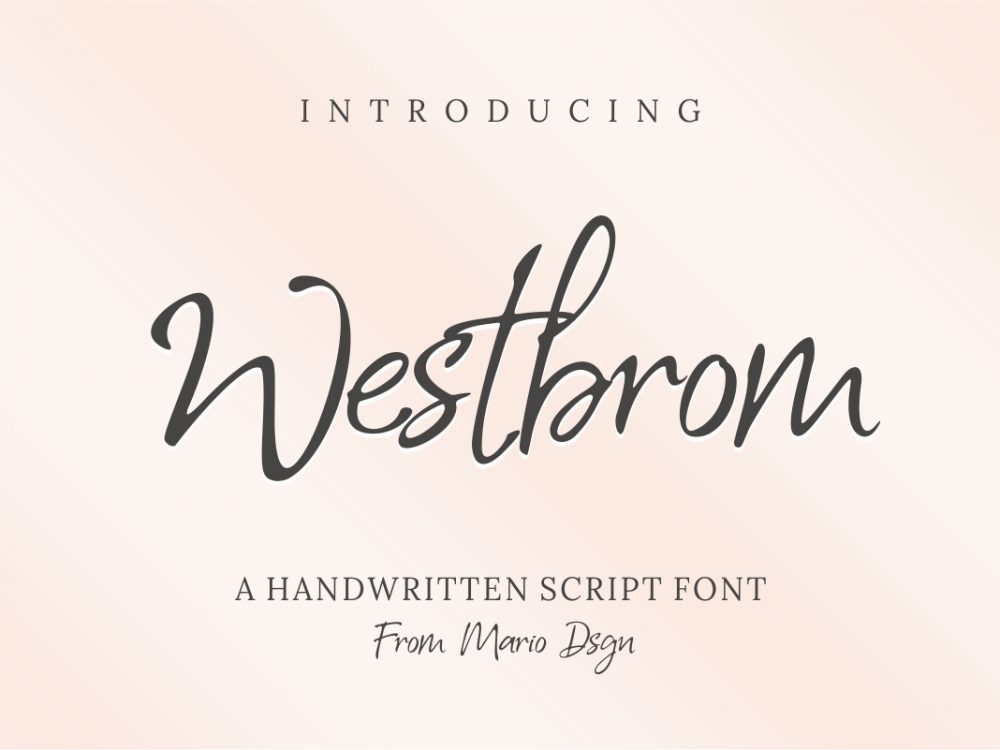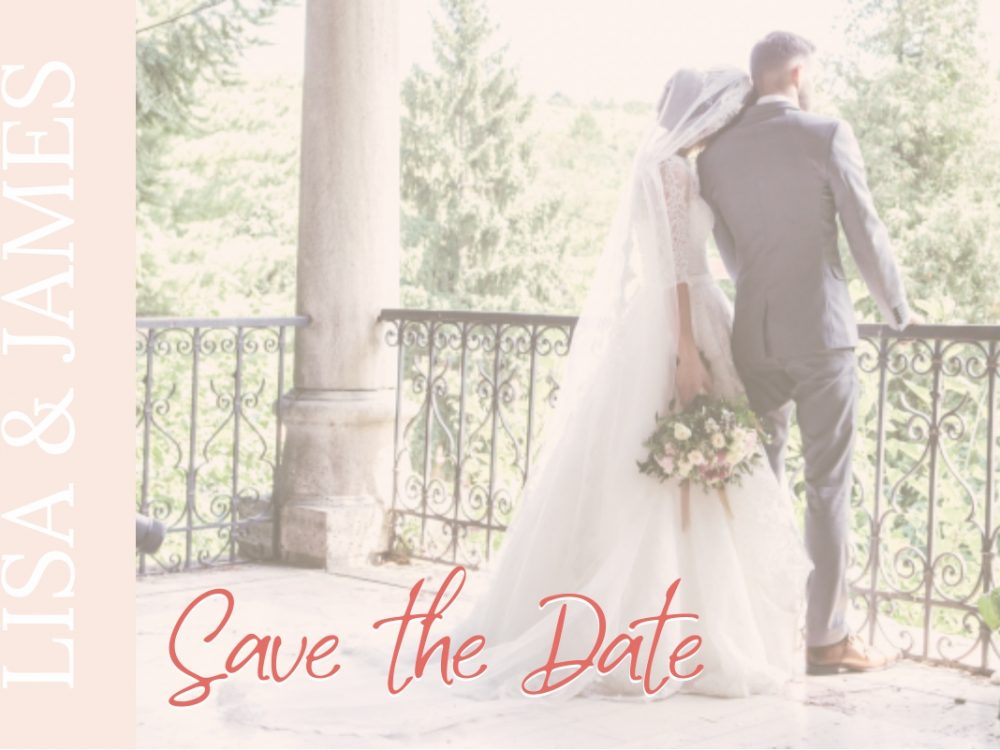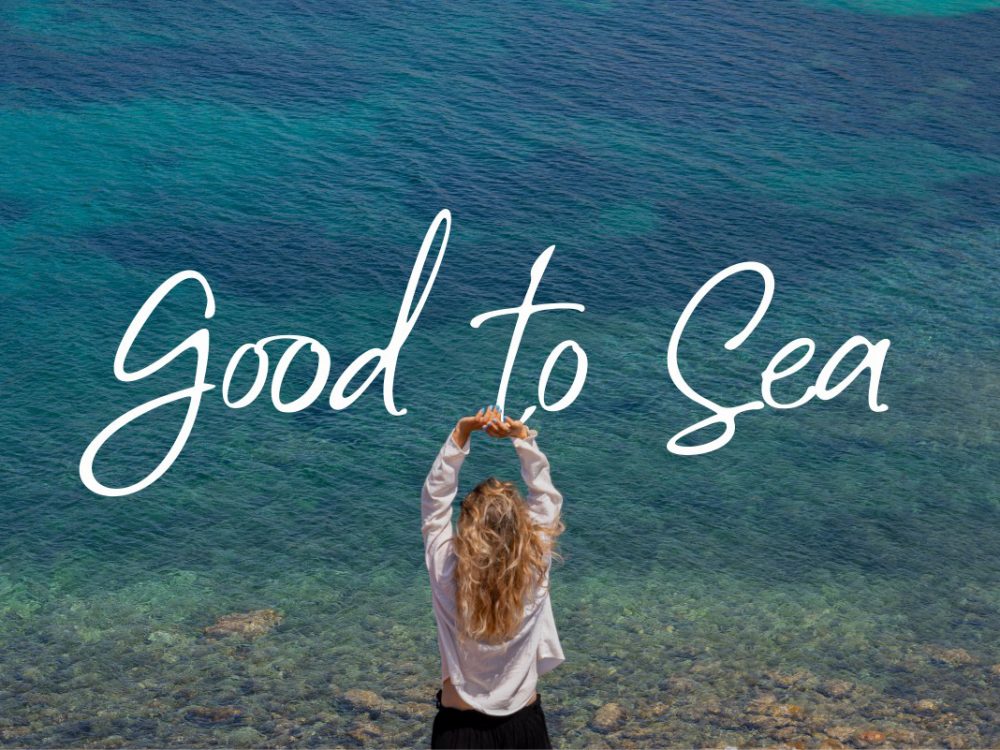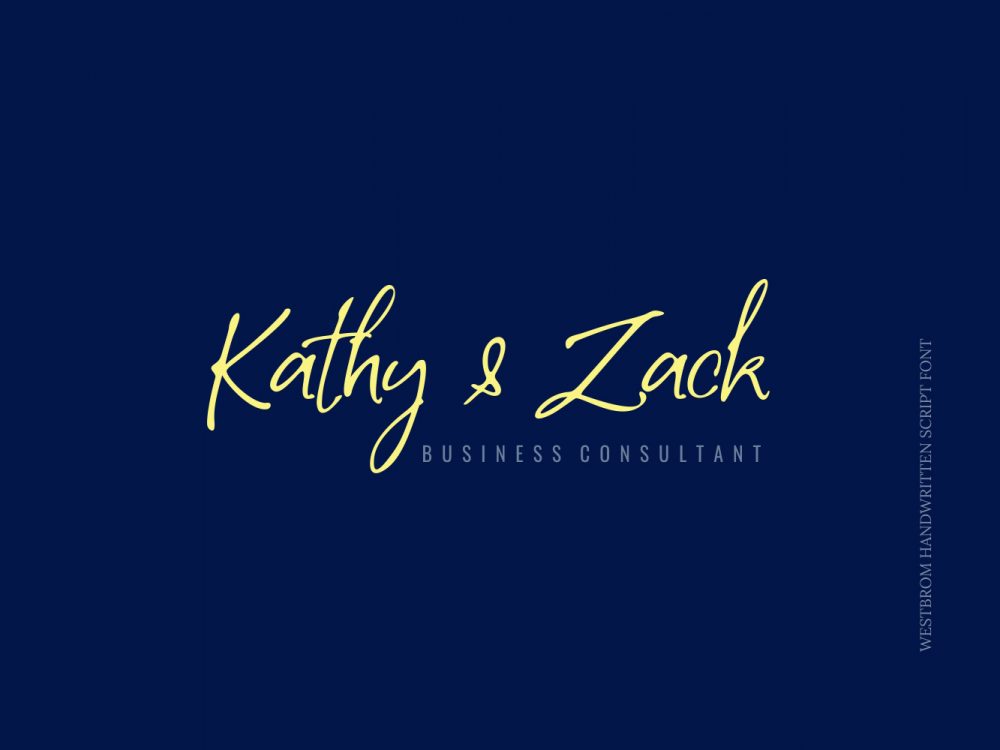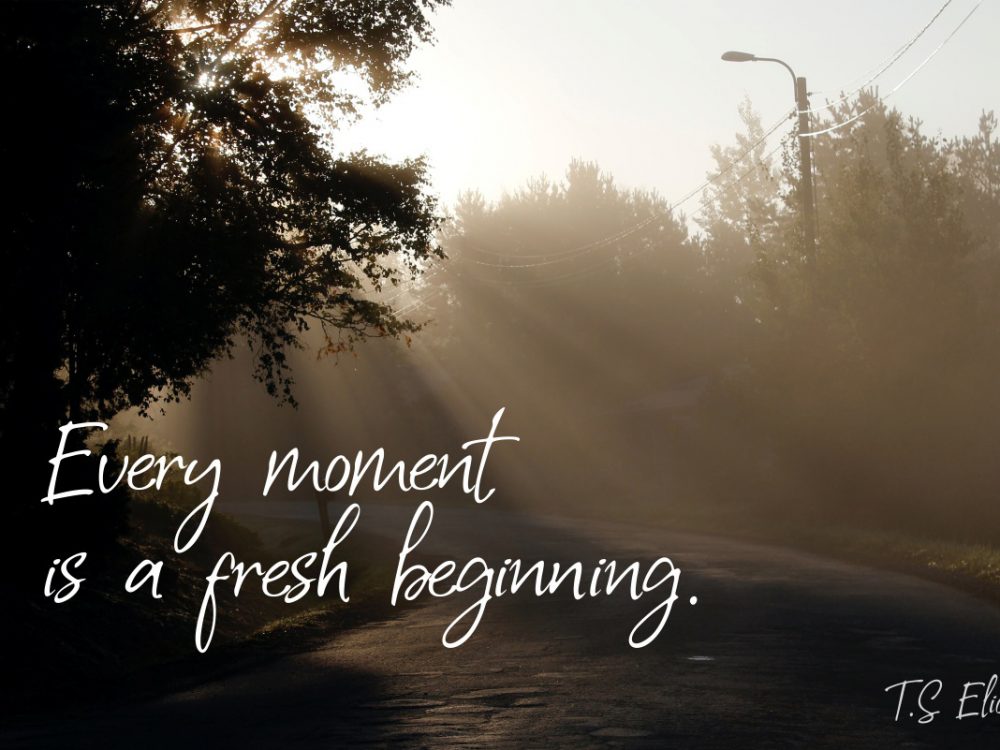
Westbrom Free Font
Westbrom Free Font is a modern calligraphic font with an elegant style. This font is very suitable for various design projects that require a scripted font. You can use this font to create memorable romantic posters, wedding invitations, greeting or New Year cards, branding, flyers, T-shirt and pillow prints, and more. Improve the quality and increase the popularity of your design projects using this font. If you like it don’t forget to check out the full version.